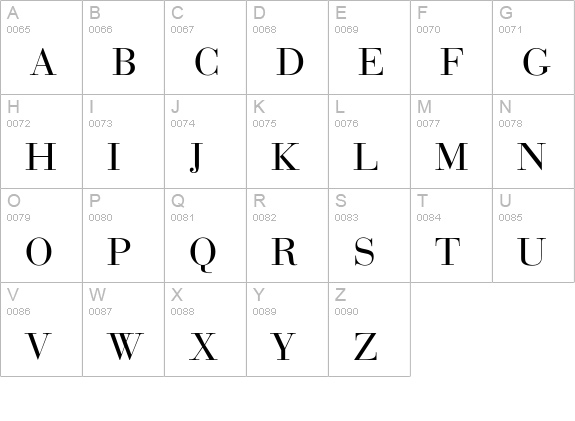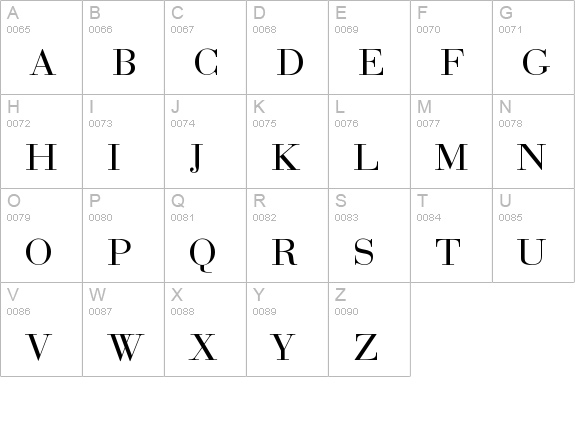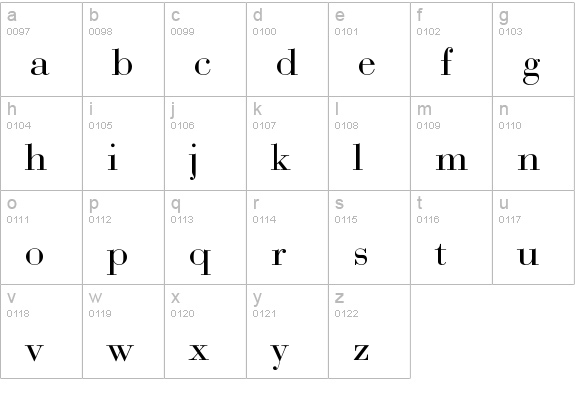
Bodoni-Normal is the standard, neutral variant in the Bodoni typeface family \xE2\x80\x94 well suited to general body text, paragraphs, and standard typographic work.
Bodoni-Normal is a timeless and elegant serif font that exudes sophistication and refinement. With its high contrast strokes and graceful letterforms, Bodoni-Normal is perfect for conveying a sense of classic beauty and luxury in any design project. This versatile font can be used for a wide range of applications, from editorial design to branding and packaging. The clean lines and sharp serifs of Bodoni-Normal make it a standout choice for creating eye-catching headlines and titles. Its clarity and readability also make it ideal for use in long blocks of text, ensuring that your message is communicated effectively and with style. What's more, Bodoni-Normal is available for free download at FontsMarket.com, making it accessible to designers and creatives looking to add a touch of sophistication to their projects without breaking the bank. So why wait? Download Bodoni-Normal today and elevate your designs with this timeless and classic font.